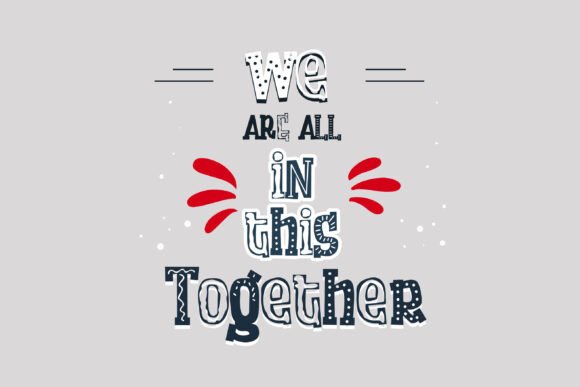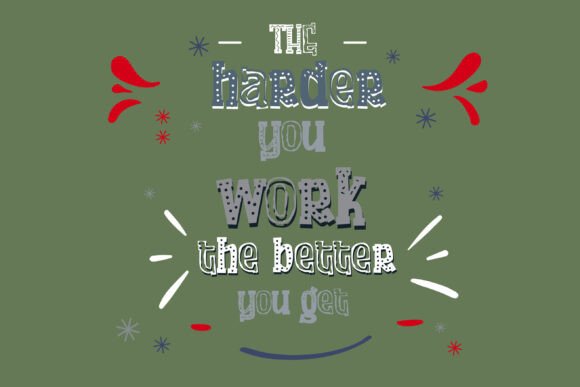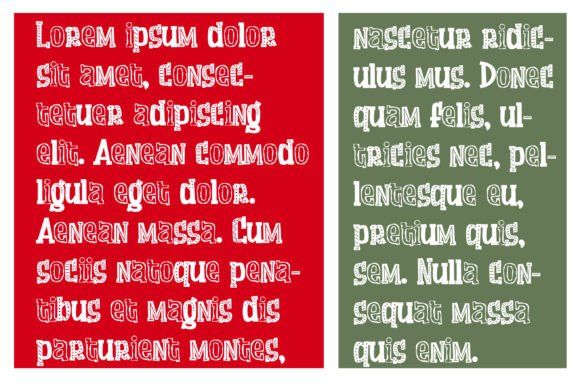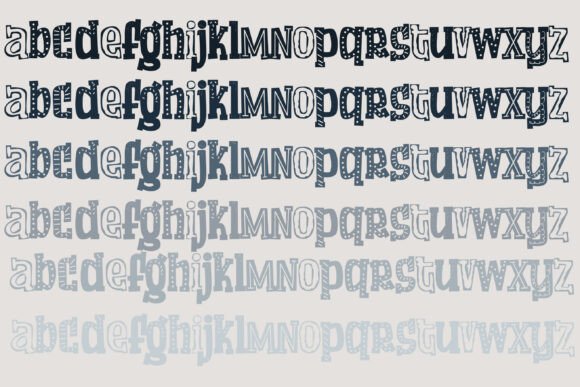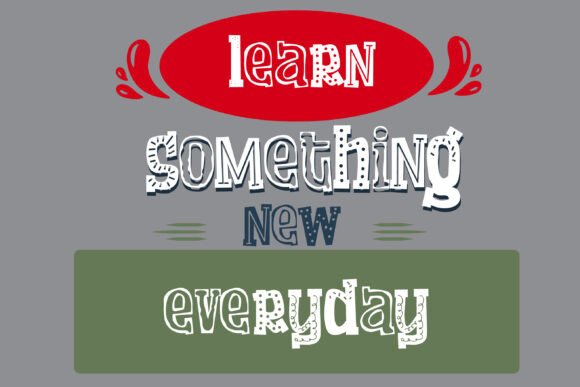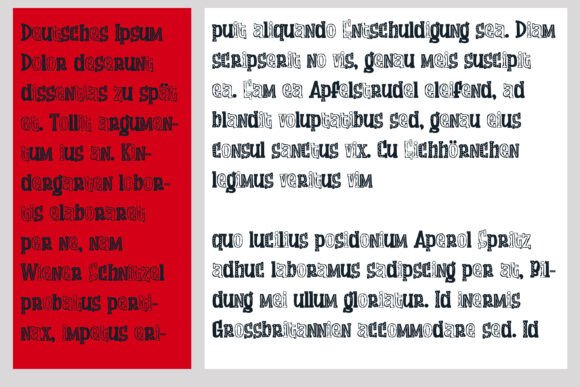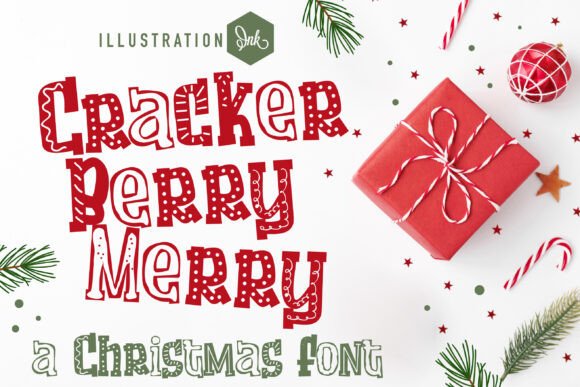
Cracker Berry Merry Font: A Whimsical Serif for the Holiday Season
Are you looking for a font that captures the magic of the holiday season? Look no further than the Cracker Berry Merry Font, a hand-crafted serif font that is sure to add a touch of whimsy to your designs. This delightful font features holiday designs like decorated cookies, making it perfect for invitations, greeting cards, and other festive projects.
A hand-crafted font is a font that is designed to look like it was written by hand. It is often used for invitations, greeting cards, and other items where a personal touch is desired. Handwritten fonts can be either formal or informal, and they can be used for a variety of purposes. They are particularly popular for holiday designs, as they can add a warm and cozy feel to your projects.
Features of Cracker Berry Merry Font
The Cracker Berry Merry Font is a unique and festive font that features a range of holiday designs, including decorated cookies, holly, and other seasonal motifs. The font is hand-crafted, giving it a personal and whimsical feel that is perfect for holiday designs. Some of the key features of this font include:
- Hand-crafted design for a personal touch
- Whimsical serif font with holiday designs
- Includes 3D version for added depth and dimension
- Perfect for invitations, greeting cards, and other holiday projects
Uses for Cracker Berry Merry Font
The Cracker Berry Merry Font is a versatile font that can be used for a range of holiday projects. Some ideas for using this font include:
- Holiday invitations and greeting cards
- Christmas party decorations and signage
- Gift tags and wrapping paper
- Social media graphics and holiday-themed posts
- Custom holiday crafts, such as ornaments and decorations
Benefits of Using a Hand-Crafted Font
Using a hand-crafted font like Cracker Berry Merry Font can add a range of benefits to your designs. Some of the advantages of using a hand-crafted font include:
- Unique and personalized look: Hand-crafted fonts are designed to look like they were written by hand, giving them a unique and personalized feel.
- Emotional connection: Handwritten fonts can create an emotional connection with the viewer, making your designs more relatable and engaging.
- Flexibility: Hand-crafted fonts can be used for a range of projects, from formal invitations to informal social media graphics.
Tips for Using Cracker Berry Merry Font
To get the most out of the Cracker Berry Merry Font, here are a few tips to keep in mind:
- Use it for holiday projects: This font is specifically designed for holiday designs, so make sure to use it for projects that fit the season.
- Experiment with colors and textures: The Cracker Berry Merry Font looks great in a range of colors and textures, so don’t be afraid to experiment and find the perfect combination for your design.
- Pair it with other fonts: This font pairs well with other serif and sans-serif fonts, so try combining it with other fonts to create a unique and interesting look.
The Cracker Berry Merry Font is a unique and festive font that is perfect for holiday designs. With its hand-crafted design, whimsical serif font, and holiday motifs, this font is sure to add a touch of magic to your projects. Whether you’re a designer or a crafter, this font is a great addition to your toolkit. So why not give it a try and see what amazing holiday designs you can create?